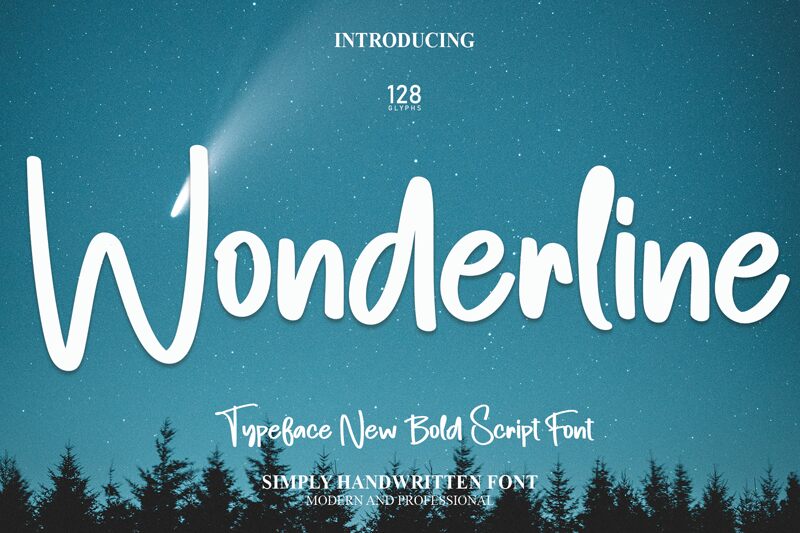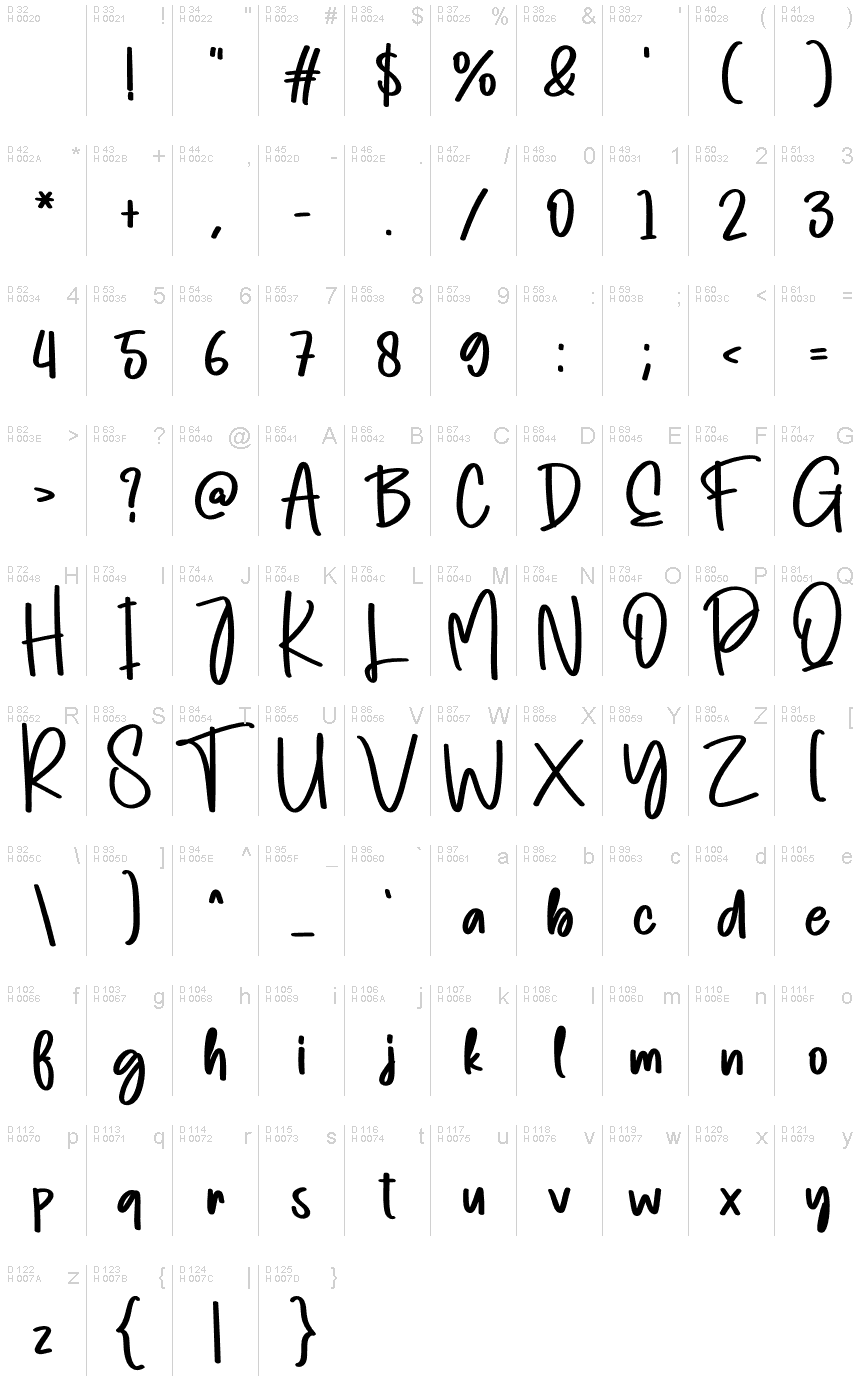
Wonderline
Wonderline, a captivating handwritten font designed by Scratchones, adds a touch of elegance and whimsy to any project. With its semi-light weight, this font enchants with its graceful curves and delicate strokes.
Perfect for wedding invitations, stationery, and greeting cards, Wonderline exudes romance and sophistication. Its handwritten style brings a personal touch to branding materials such as logos or business cards. Additionally, Wonderline adds a playful element to children's books or illustrations.
Let your creativity soar with Wonderline's enchanting charm and versatile nature.
The latest style letters are perfect for wall displays, wedding invitations, social media post logos, advertisements, product packaging, product designs, labels, photography, watermarks, invitations, stationery, and any project that requires taste handwriting.